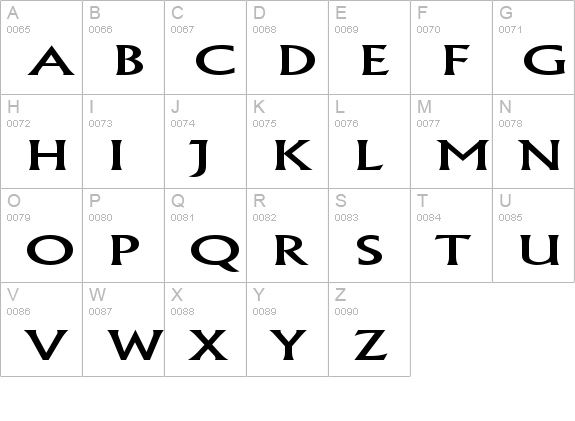
Flair Extended Normal Font Details
Flair Extended Normal is the standard, neutral, extended-width variant in the Flair typeface family \xE2\x80\x94 well suited to general body text, paragraphs, and standard typographic work.
Flair Extended Normal font is a versatile and elegant typeface that exudes sophistication and style. With its sleek lines and contemporary design, this font is perfect for a wide range of design projects, from branding and advertising to editorial and packaging. Its extended characters add a unique touch to any text, making it stand out from the crowd. What's more, Flair Extended Normal font is available for free download at FontsMarket.com, making it easily accessible to designers and creatives looking to elevate their projects with a touch of class. Whether you're working on a logo, poster, or website, this font is sure to make a lasting impression with its timeless appeal and modern aesthetic. Download Flair Extended Normal font today and take your designs to the next level!